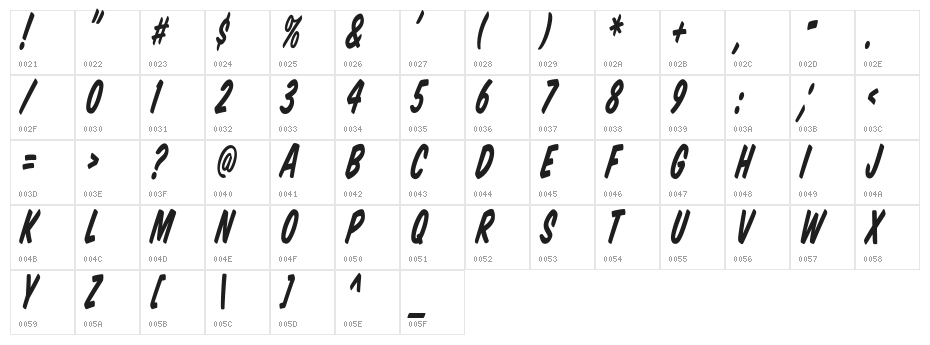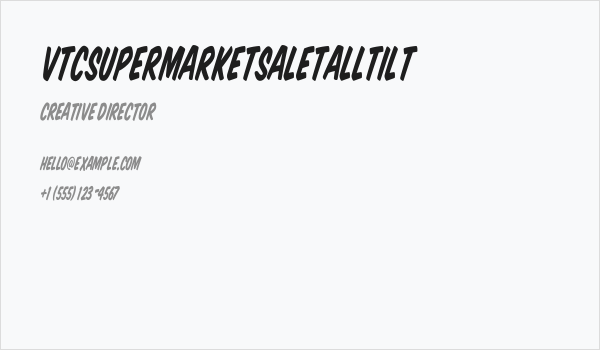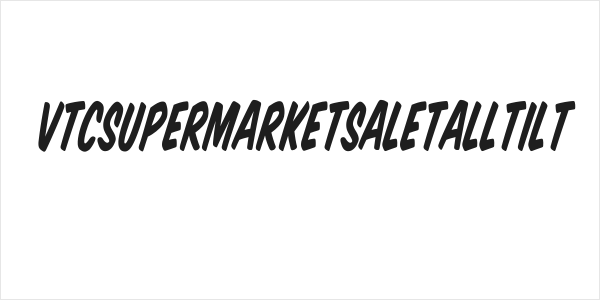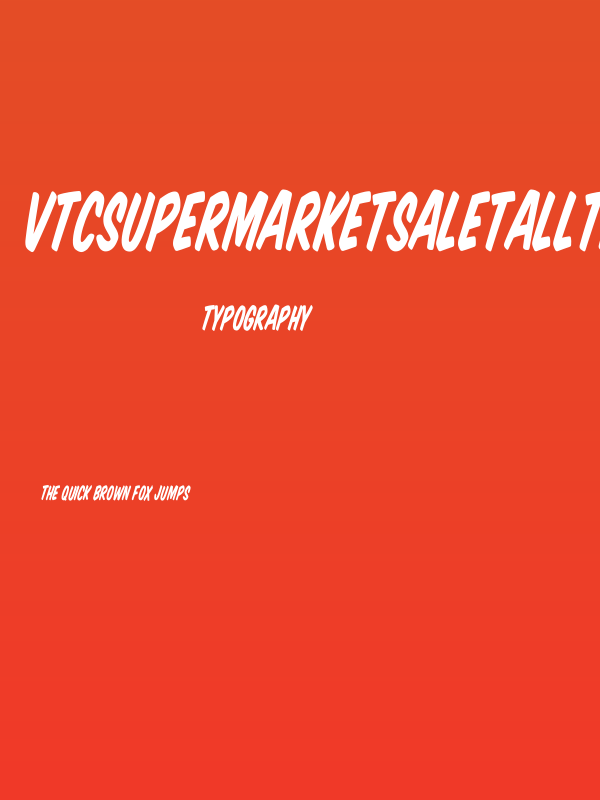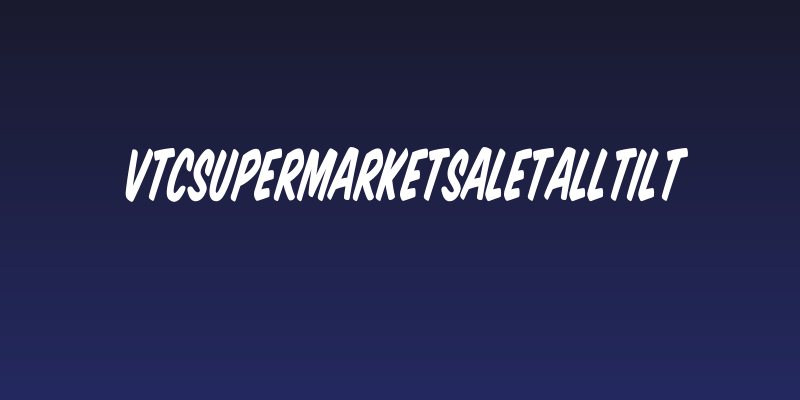
VTCSuperMarketSaleTallTilt Font
VTCSuperMarketSaleTallTilt Description
This font features a bold and dynamic style with a distinct slant, giving it a sense of movement and energy. The characters are thick and slightly condensed, making them highly visible and impactful. The uppercase and lowercase letters maintain a consistent style, with rounded edges and a playful, informal appearance. The numbers and special characters follow the same bold and tilted design, ensuring uniformity across all elements. This font is ideal for creating eye-catching headlines and promotional materials that require a strong visual presence.
| Proposed Projects | Ideal for posters, advertisements, and branding materials that require a bold and energetic look. |